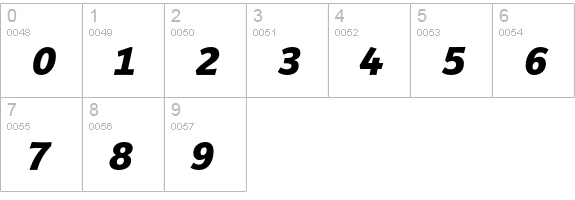
Giacomo Heavy Italic is a heavy, high-impact, italic variant in the Giacomo typeface family \xE2\x80\x94 well suited to high-impact headlines, posters, and display advertising.
The Giacomo Heavy Italic font exudes a sense of boldness and sophistication, making it a perfect choice for projects that require a touch of elegance and creativity. Its heavy weight and italic style create a striking visual impact, drawing the reader's attention with its unique character and charm. The sleek curves and sharp angles of Giacomo Heavy Italic make it a versatile choice for a wide range of design applications, from branding to editorial design. What's even better is that Giacomo Heavy Italic font is available for free download at FontsMarket.com. This means that you can easily access this stunning typeface without any cost, adding a touch of luxury to your projects without breaking the bank. Don't miss out on the opportunity to enhance your designs with the beauty and sophistication of Giacomo Heavy Italic font – download it for free today!